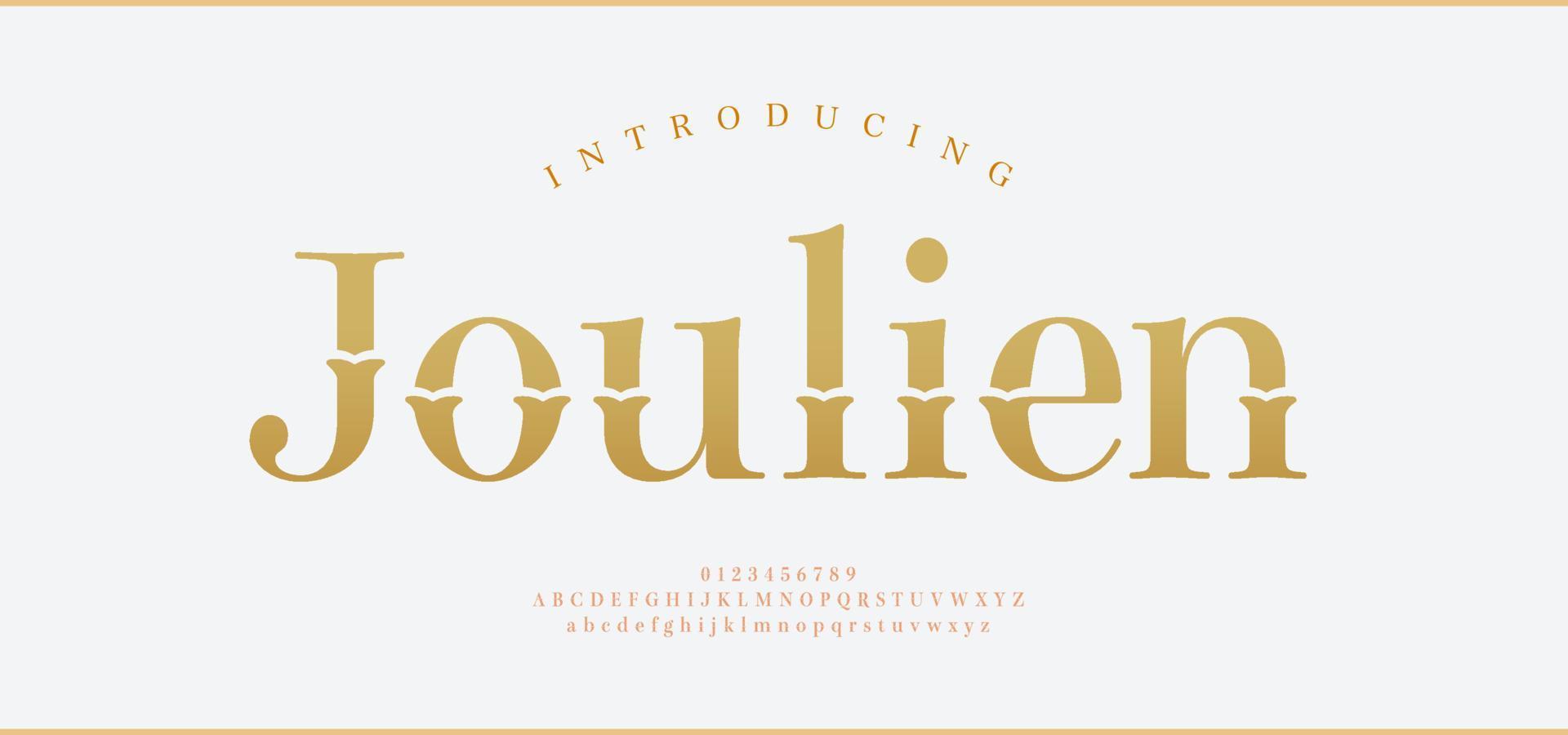
Elegant alphabet letters font and number. Classic Lettering Minimal Fashion. Typography modern serif fonts decorative logo vintage wedding concept. vector illustration Pro Vector and Pro SVG